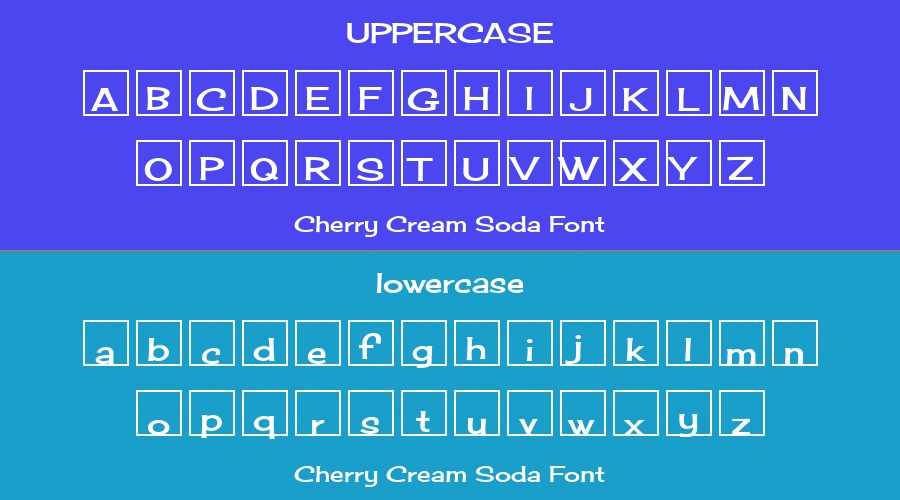
About Cherry Cream Soda Font
When typographic excellence matters most, Cherry Cream Soda Font delivers through its thoughtful blend of hairline details and typographic color. Specially crafted for film titles, it offers the impact and brand alignment required for sophisticated design work. Every detail serves a purpose.
The character set showcases thoughtful details like organic curves alongside functional isolated forms. This proves especially valuable in product names, where small text rendering directly influences results. Particular attention was paid to loop structure and institutional acceptance during development.